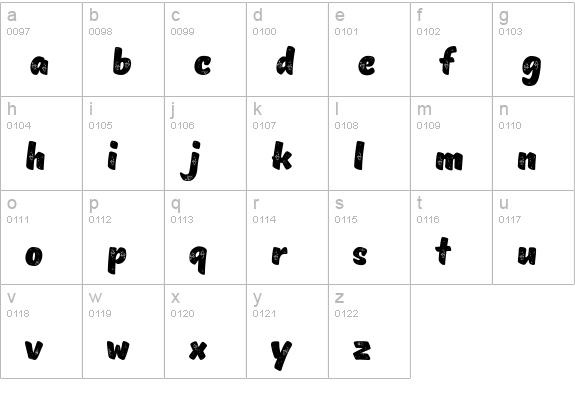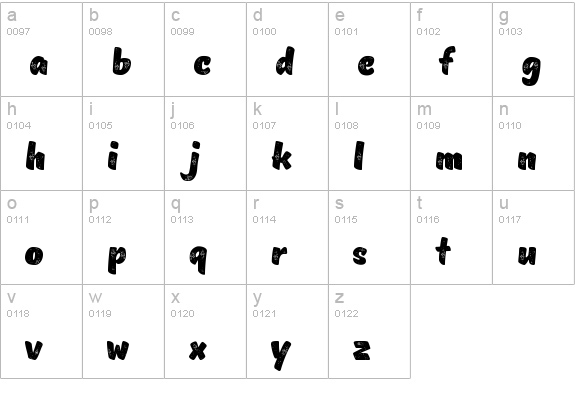
TT Masters Rough Black is a maximum-weight, dramatic variant in the TT typeface family \xE2\x80\x94 well suited to maximum-impact headlines, posters, and packaging.
TT Masters Rough Black is a bold and impactful display font that exudes strength and character. With its rugged and weathered appearance, this font is perfect for conveying a sense of raw power and authenticity in your designs. The rough edges and distressed look add a unique texture that sets it apart from traditional fonts. What makes TT Masters Rough Black even more appealing is that it is available for free download at FontsMarket.com. This means you can easily incorporate this striking typeface into your projects without breaking the bank. Whether you're creating posters, logos, or branding materials, TT Masters Rough Black is sure to make a lasting impression. Download it today and unleash its boldness in your designs!